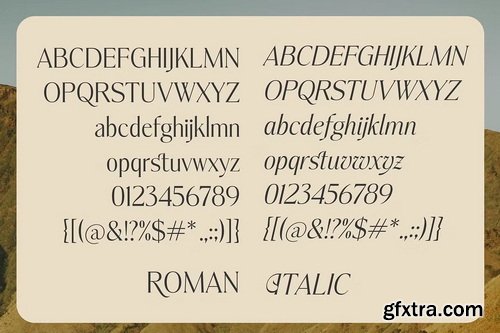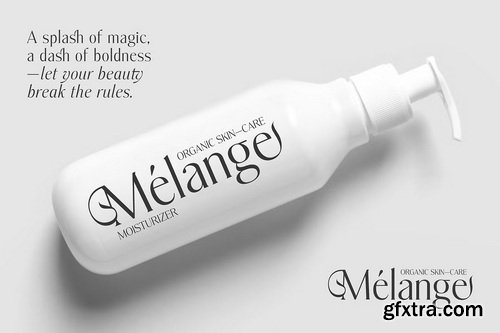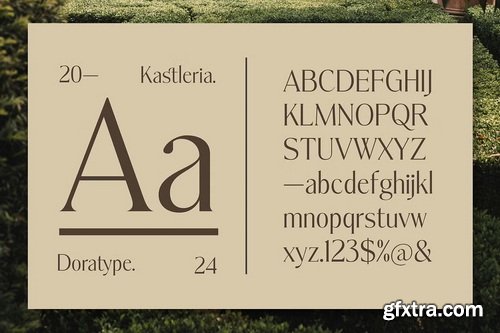
CreativeMarket - Kastleria - Luxury Serif
Kastleria is a sophisticated serif typeface with a true italic version created to bring contrast, wrinkle, and refinement to your work, offering clean lines and a timeless aesthetic, with classic style and modern flexibility. You can use this font for a variety of purposes such as branding, logos, editorial designs, invitations, and more.